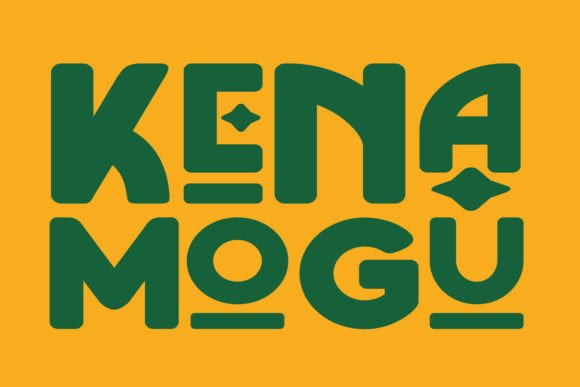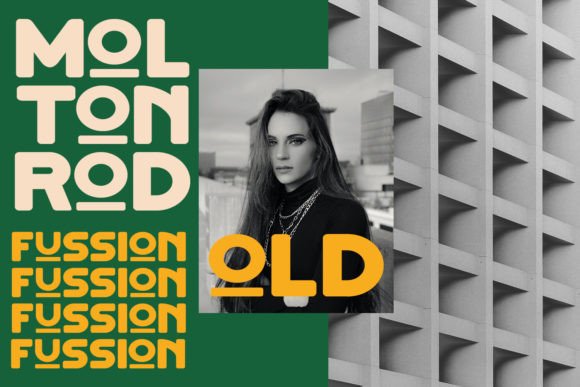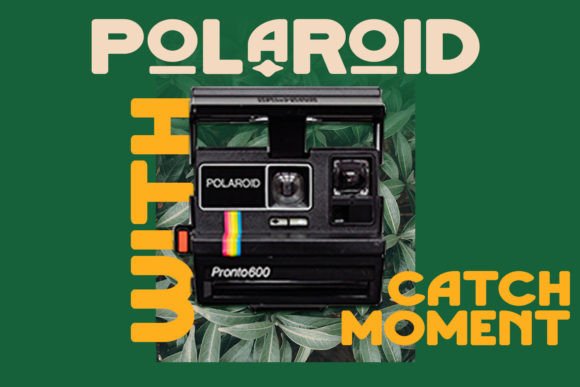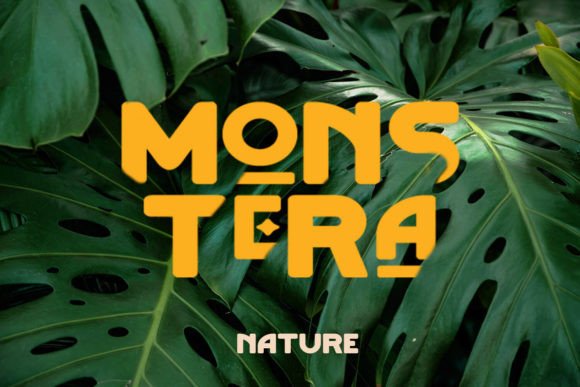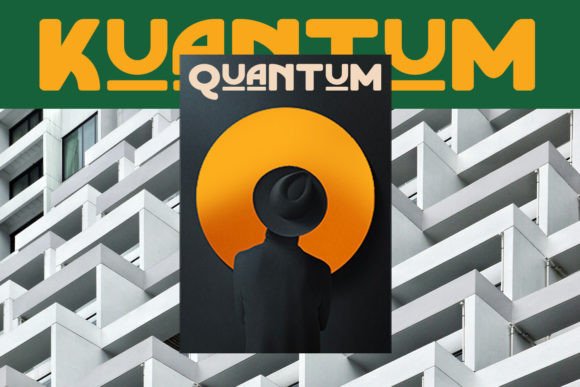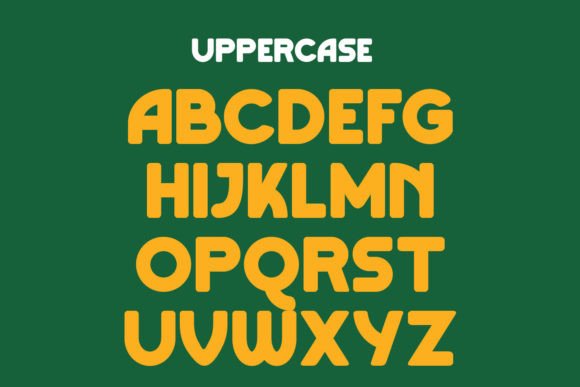
Introducing Ekina Kinigoo Font: The Ultimate Bold Display Font for Designers and Crafters
Are you tired of using the same old fonts for your designs and crafts? Look no further! Ekina Kinigoo Font is here to revolutionize your creative projects with its bold, all-caps display style and perfect blend of trendiness. In this article, we’ll dive into the features, benefits, and uses of Ekina Kinigoo Font, making it a must-have for designers, crafters, and digital artists.
What is Ekina Kinigoo Font?
Ekina Kinigoo Font is a bold, all-caps display font designed to make a statement. Its unique and trendy style makes it perfect for a variety of creative projects, from digital designs to handmade crafts. With its clean and crisp lines, Ekina Kinigoo Font is sure to grab attention and add a touch of sophistication to any design.
Key Features of Ekina Kinigoo Font
- Bold and All-Caps: Ekina Kinigoo Font is designed to make a statement with its bold and all-caps style, perfect for headlines, titles, and emphasis.
- Trendy and Modern: This font features a unique and trendy style that’s perfect for designers and crafters who want to stay on top of the latest design trends.
- Versatile: Ekina Kinigoo Font can be used for a variety of projects, including digital designs, crafts, presentations, and greeting cards.
- Easily Readable: Despite its bold style, Ekina Kinigoo Font is easily readable, making it perfect for body text and titles.
Uses of Ekina Kinigoo Font
Ekina Kinigoo Font is perfect for a wide range of creative projects, including:
- Digital Designing: Use Ekina Kinigoo Font to create stunning digital designs, including social media graphics, blog posts, and website headers.
- Crafting: Add a touch of elegance to your handmade crafts, such as scrapbooking, card making, and DIY projects.
- Presentations: Make your presentations stand out with Ekina Kinigoo Font, perfect for titles, headings, and emphasis.
- Greeting Cards Making: Create beautiful and unique greeting cards for special occasions, including birthdays, weddings, and holidays.
Benefits of Using Ekina Kinigoo Font
By using Ekina Kinigoo Font, designers and crafters can benefit from:
- Unique and Creative Designs: Ekina Kinigoo Font helps you create unique and creative designs that stand out from the crowd.
- Time-Saving: With its easily readable style, Ekina Kinigoo Font saves you time and effort in designing and crafting.
- Professional Look: Add a professional touch to your designs and crafts with Ekina Kinigoo Font’s clean and crisp lines.
Tips and Tricks for Using Ekina Kinigoo Font
Here are some tips and tricks for getting the most out of Ekina Kinigoo Font:
- Experiment with Colors: Try pairing Ekina Kinigoo Font with different colors to create stunning contrast and visual interest.
- Mix and Match Fonts: Combine Ekina Kinigoo Font with other fonts to create unique and creative typography.
- Play with Sizes: Experiment with different font sizes to create visual hierarchy and emphasis.
| Font Name | Ekina Kinigoo Font |
Ekina Kinigoo Font is a versatile and trendy bold display font that’s perfect for designers, crafters, and digital artists. With its unique style, easily readable lines, and bold all-caps design, it’s ideal for a wide range of creative projects. Whether you’re creating digital designs, handmade crafts, presentations, or greeting cards, Ekina Kinigoo Font is sure to add a touch of sophistication and elegance. So why wait? Get creative with Ekina Kinigoo Font today!